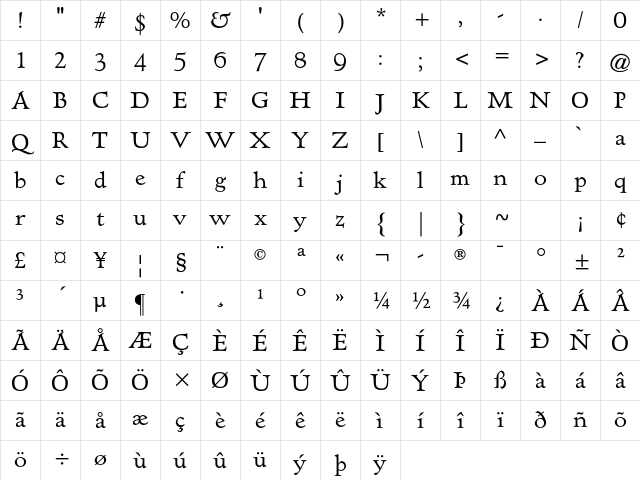
AT Hadriano Std Light
AT Hadriano Std Family
Design Context for AT Hadriano Std
AT Hadriano Std is a composed and adaptable typeface that performs quietly and consistently across a wide range of design contexts. Its slender proportions lend an understated elegance to any composition.